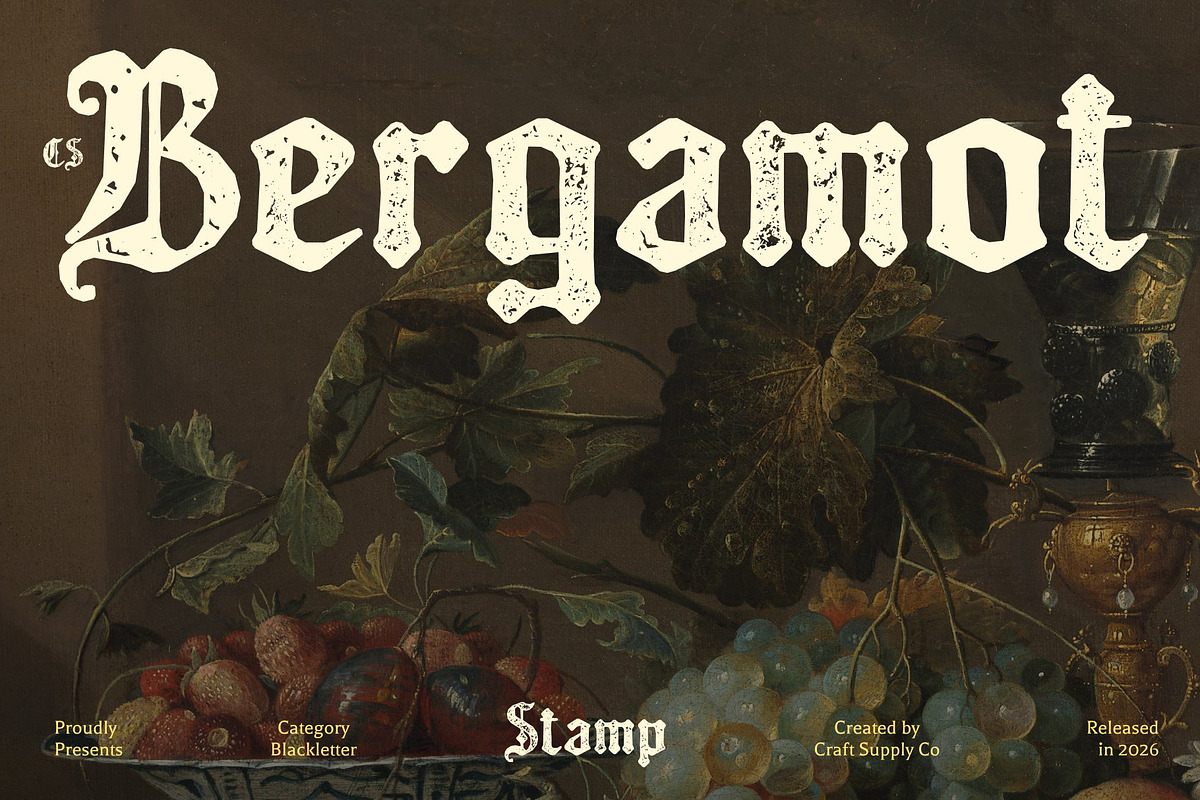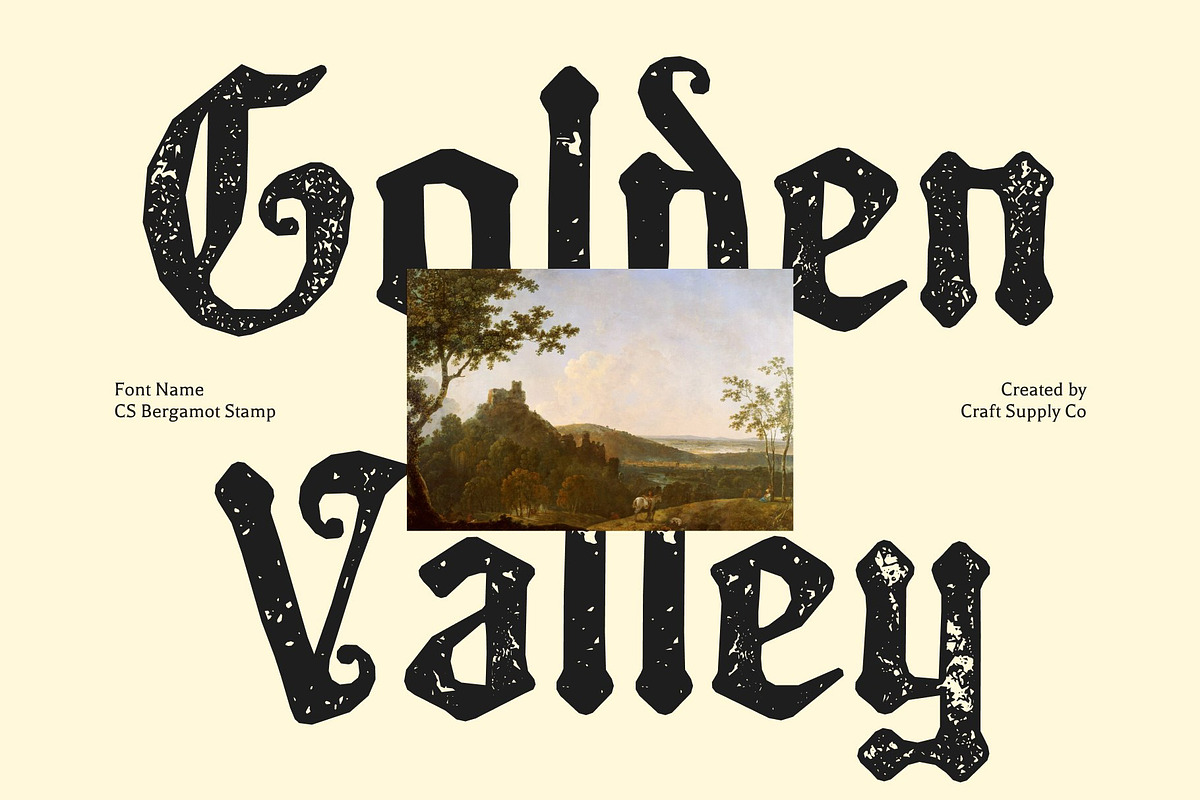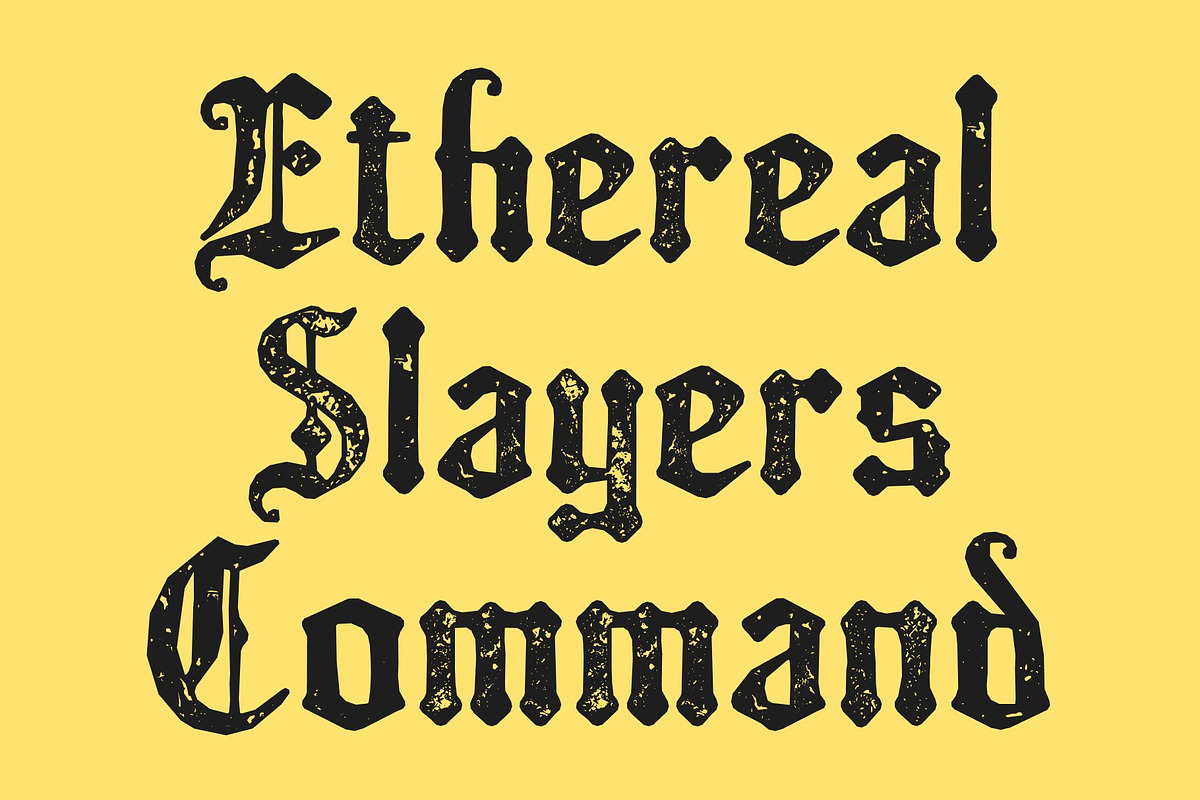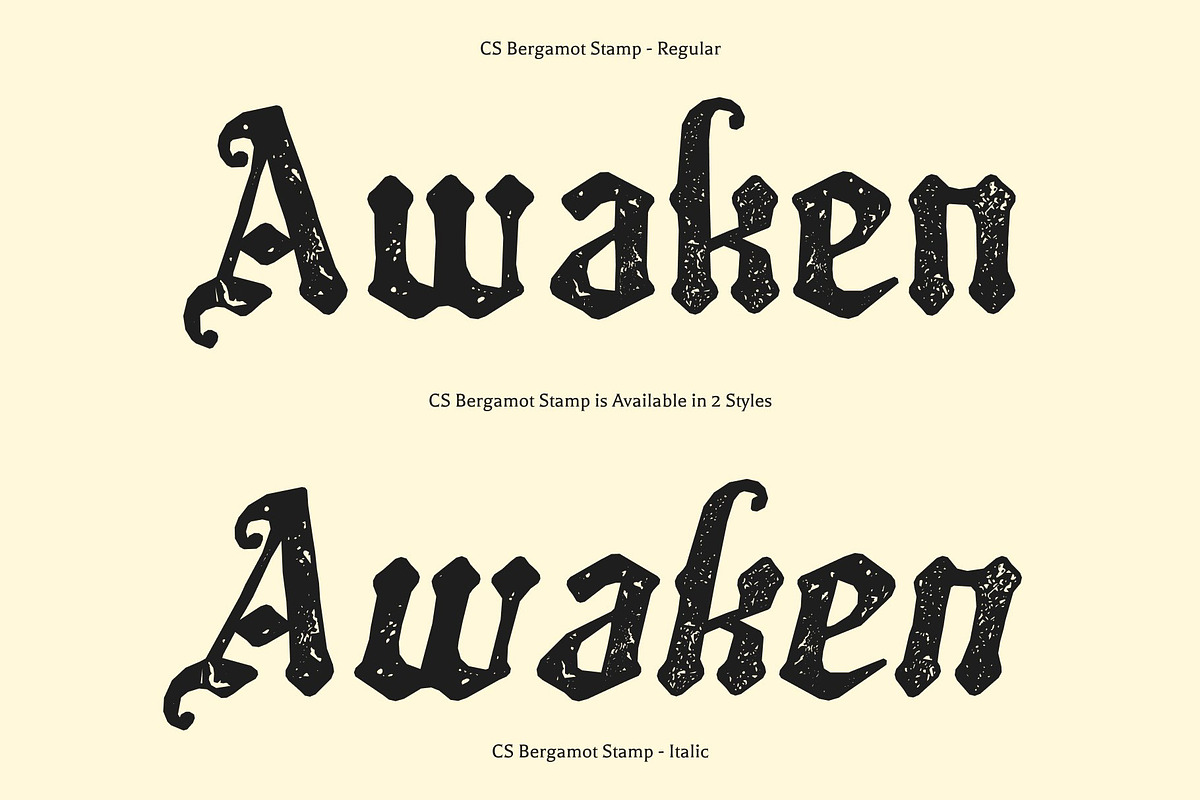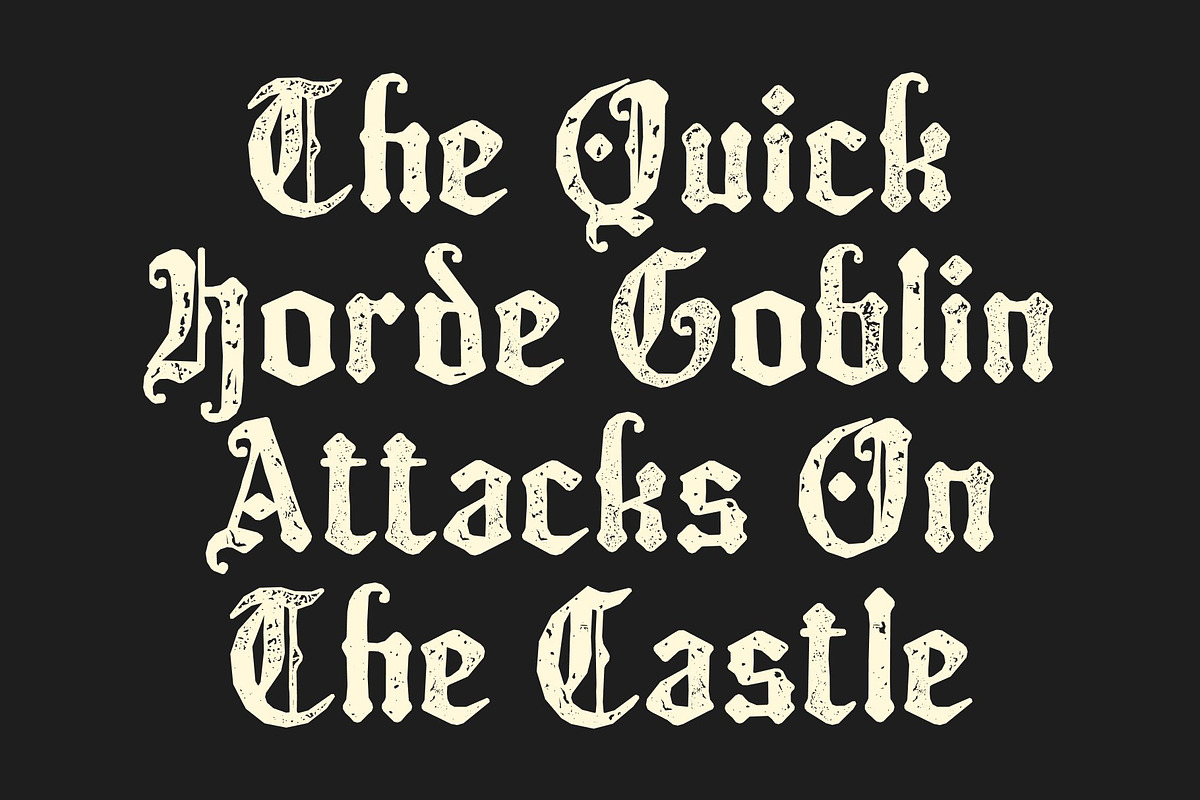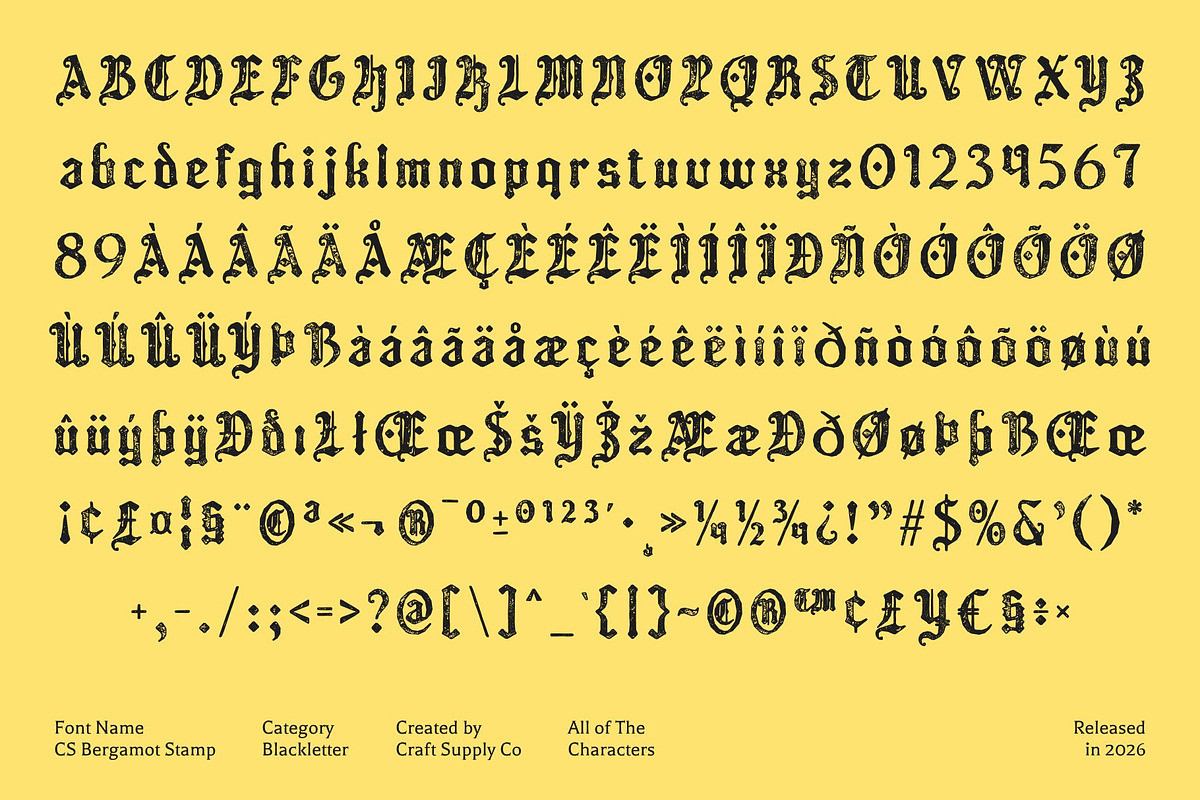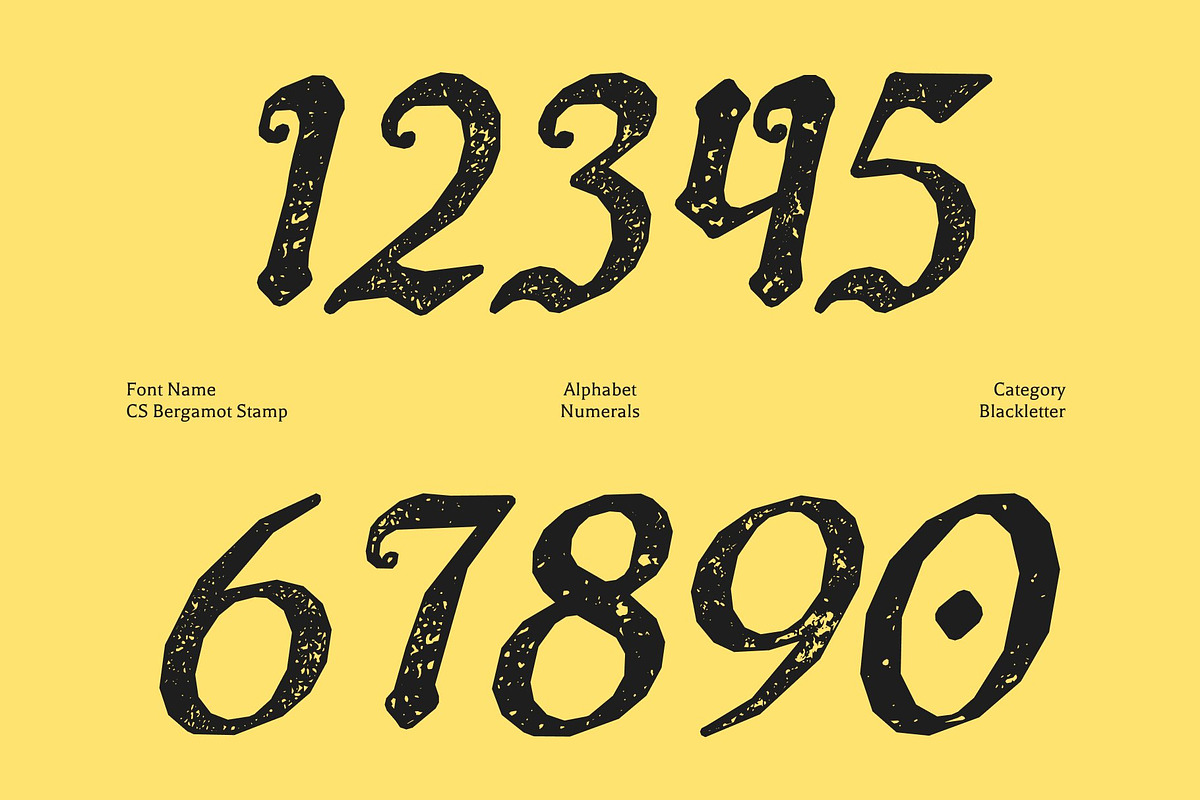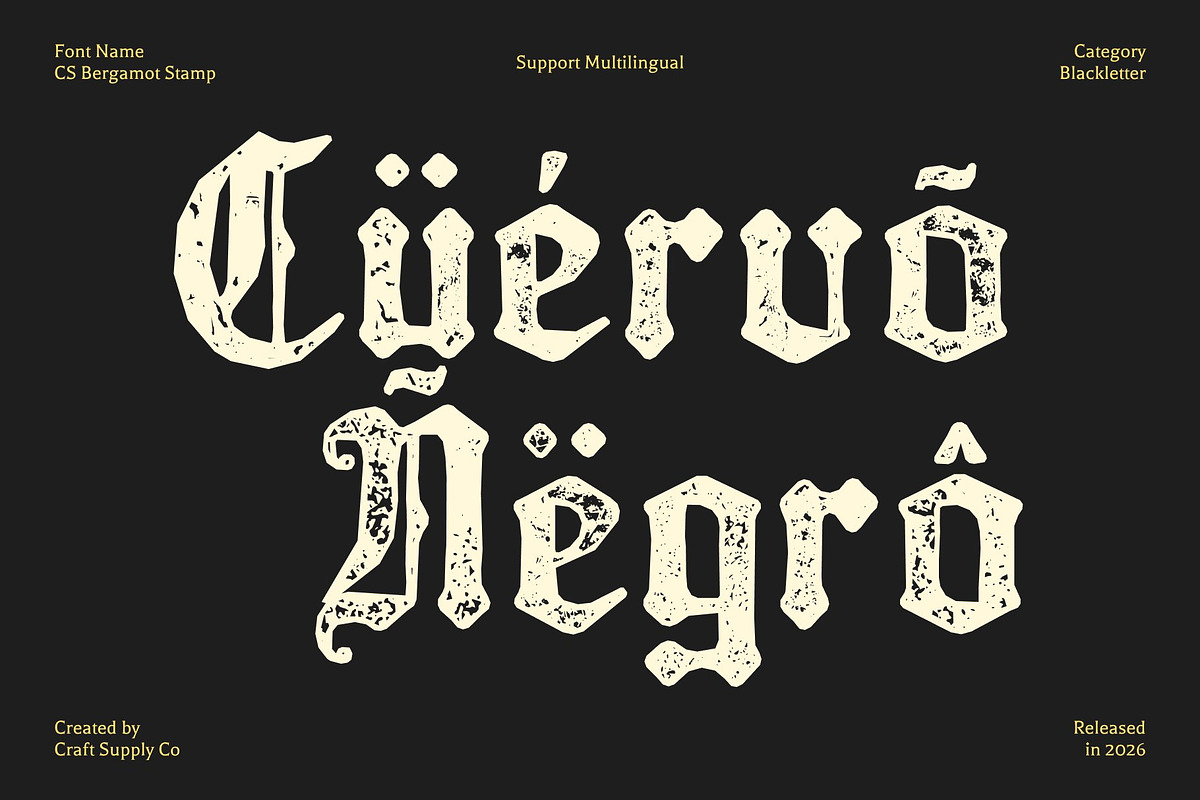
CS Bergamot Stamp
CS Bergamot Stamp – Blackletter Font: Bold Medieval Power with Vintage Texture
Blackletter Display with Medieval Authority This is a bold blackletter display font rooted in the rich visual language of medieval European manuscripts, now enhanced with a rugged stamp effect. Its sharp angles, thick vertical strokes, and dramatic contrasts are layered with subtle ink distress and textured imperfections, evoking the look of aged prints, antique presses, and historical proclamations.
Gothic Formality with Aged Character The classic blackletter structure delivers a formal, authoritative presence, while the stamped texture introduces warmth and authenticity. Slight inconsistencies in ink coverage and roughened edges give the font an old-world, handcrafted feel perfect for designs that want to communicate power, tradition, and timeless gothic elegance.
Intricate Ornamentation with Artistic Depth This font’s ornate detailing becomes even more expressive through its textured surface. The stamp effect adds visual depth and tactile richness, making each letter feel engraved, pressed, and weathered by time. This artistic texture strengthens the historical narrative, enhancing drama and visual impact.
Ideal for Vintage, Gothic, and Character-Driven Designs Perfect for metal concert posters, vintage beer labels, heritage branding, album artwork, editorial headlines, and medieval-inspired visuals, bridges the past and present. Its bold blackletter form paired with an aged stamp finish makes it a powerful choice for projects that demand intensity, authenticity, and a strong historical soul.
CS Bergamot Stamp Regular
CS Bergamot Stamp Italic